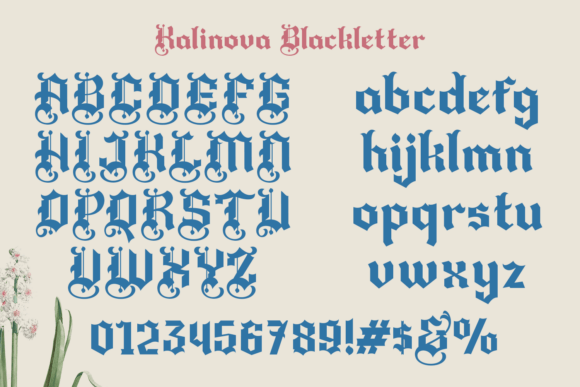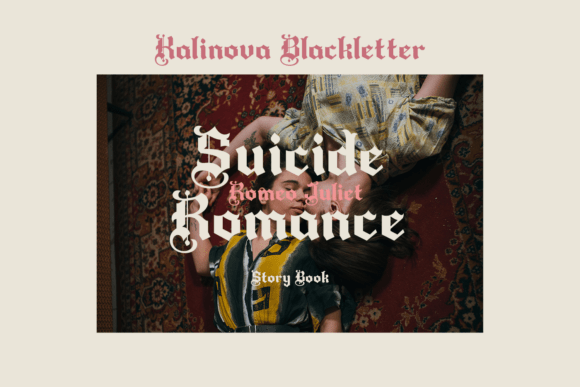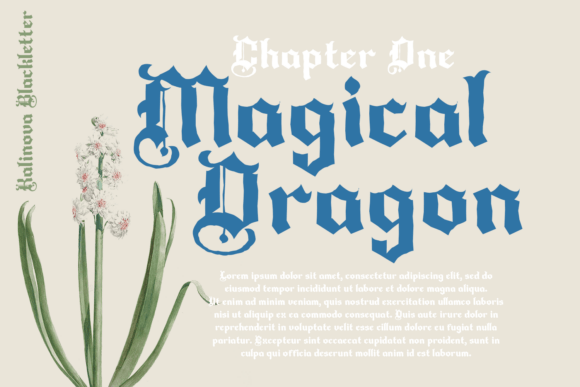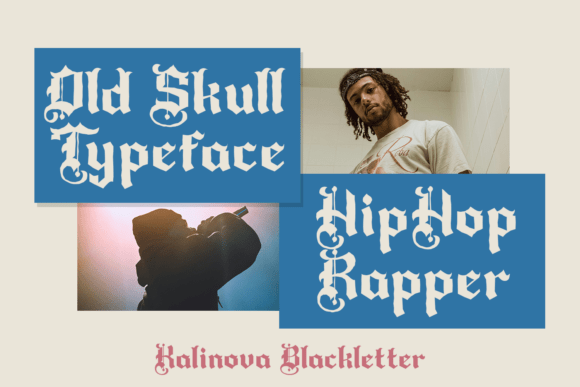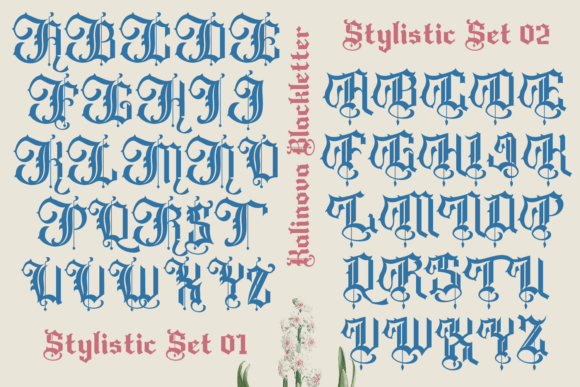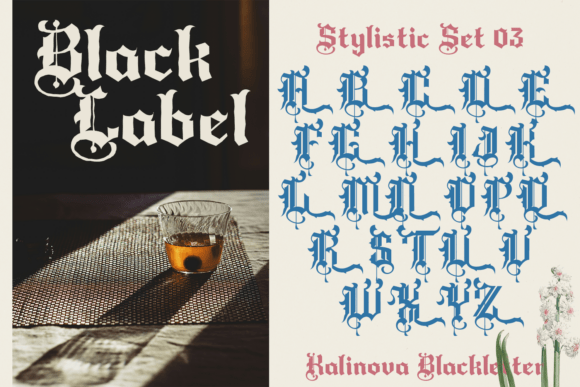
Introduction to Kolinova Font
Have you ever stared at a blank canvas, struggling to find the perfect font to bring your creative project to life? The blank page stares back, taunting you with its emptiness. But what if you had the perfect design resource at your fingertips? Enter the Kolinova Font, a masterpiece of typography that’s about to change the game for designers.
With its bold, dramatic strokes and intricate detailing, this high-quality font is the ultimate game-changer for any creative project. Whether you’re designing a logo, a book cover, or a magazine spread, the Kolinova Font is sure to make your text stand out with a rugged, vintage charm. And the best part? It comes with a rich set of ligatures and alternate characters, making it the perfect choice for designers who demand the best.
- Unique, modern design with a transparent background, ideal for digital and print media.
- Includes a wide range of characters, including Latin and Cyrillic scripts, to support international languages.
- Perfect for use in logos, typography, and other design elements where a modern and sleek look is desired.
Honest Review: Kolinova Font
I recently had the chance to work with the Kolinova Font, and I must say it’s been a delightful experience. As a designer, I’m always on the lookout for high-quality design resources that can elevate my creative projects.
Here are some of the things that stood out to me about the Kolinova Font:
- ✨ The font is incredibly versatile, making it perfect for a wide range of design applications.
- ✨ The transparent background option allows for seamless integration with other design elements.
- ⚠️ The font is not as customizable as some of the other fonts I’ve worked with.
Overall, I’m really impressed with the Kolinova Font. Its high quality and versatility make it a valuable addition to any designer’s toolkit. With a few minor tweaks, I think this font has the potential to become a go-to choice for designers everywhere.
The Kolinova Font is a versatile and high-quality design resource ideal for creative projects. It offers a unique aesthetic that can elevate any design, making it a valuable addition to your toolkit.
Tips for Getting the Most Out of Kolinova Font
Use the Kolinova Font on a transparent background to create a striking visual effect. Experiment with different font sizes and colors to achieve the desired look and feel.
The Kolinova Font is ideal for a variety of creative projects, including logos, branding materials, and marketing collateral. Its high-quality design makes it a valuable resource for designers and non-designers alike.